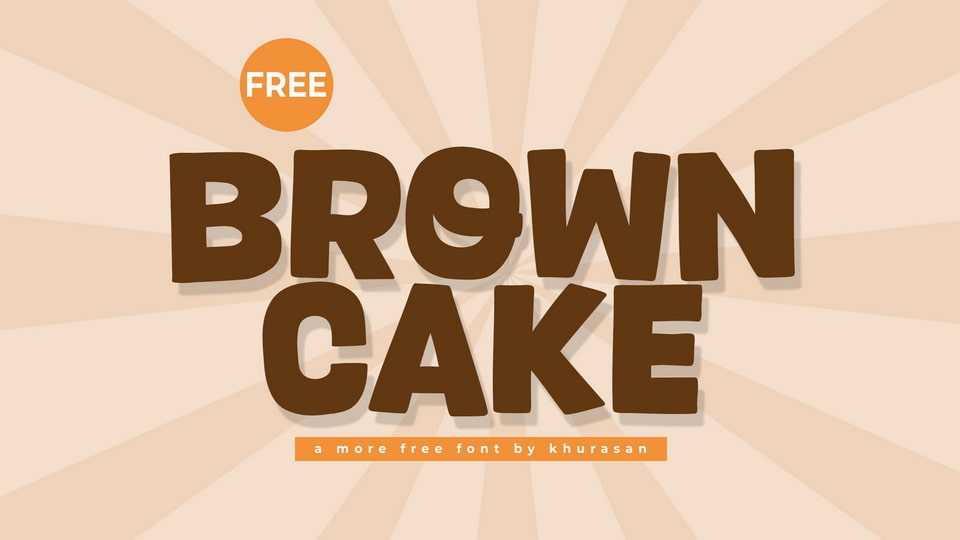
Download Brown Cake font, a bold and quirky hand-crafted cartoon typeface bursting with personality. Its playful, uneven shapes and exaggerated proportions give it a lively, whimsical charm.